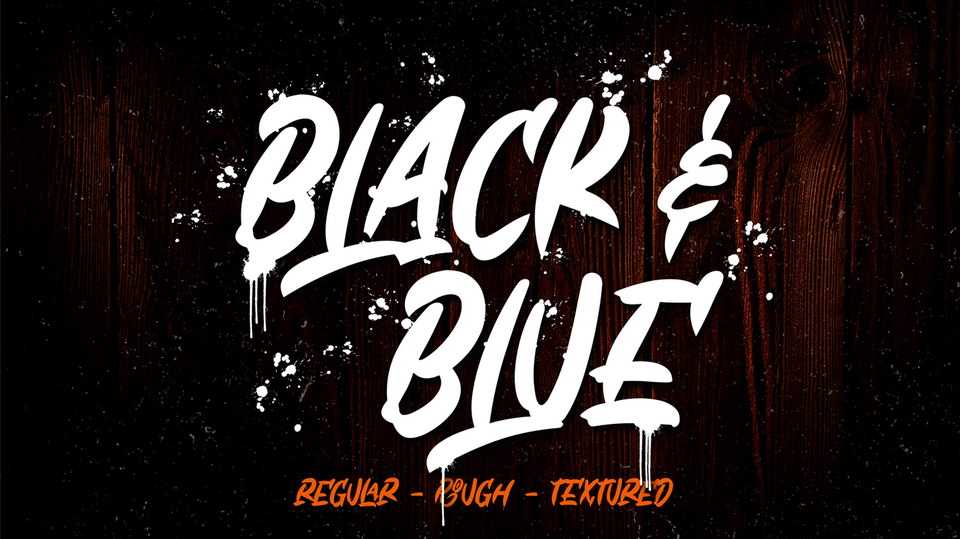
Download Black & Blue font, a hand lettered brush script in 3 styles, Regular (Clean), Rough and Textured. Black & Blue script is ideal for logos, apparel, T-shirt, Hoodie, quotes, product packaging, or anything which needs a typographic turbo-boost.
Designer: Ibnu Utomo